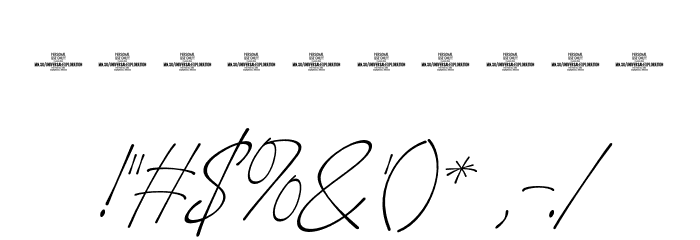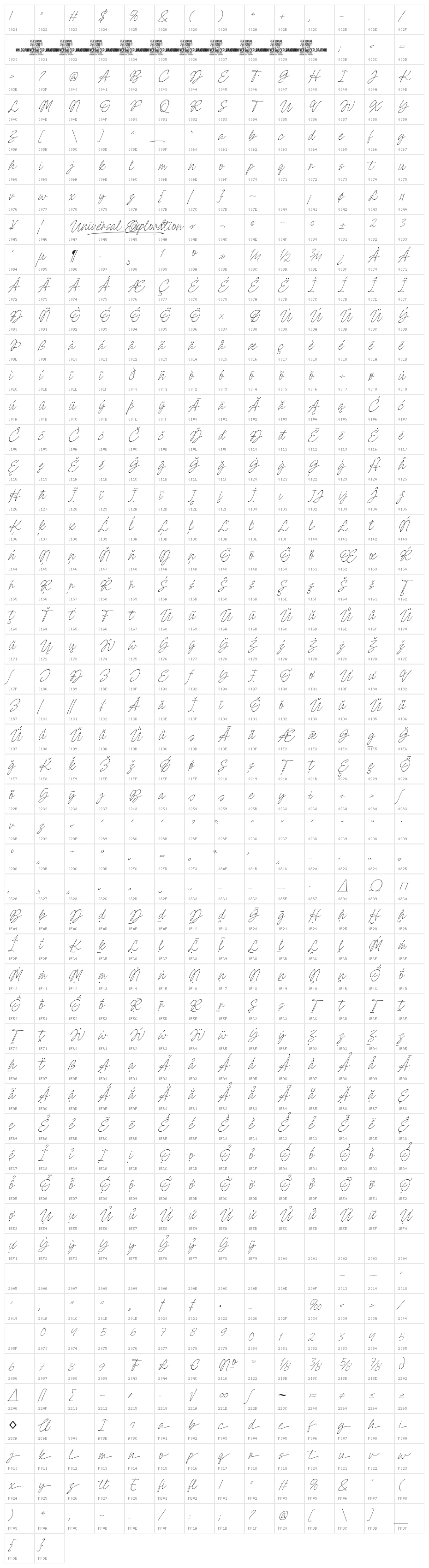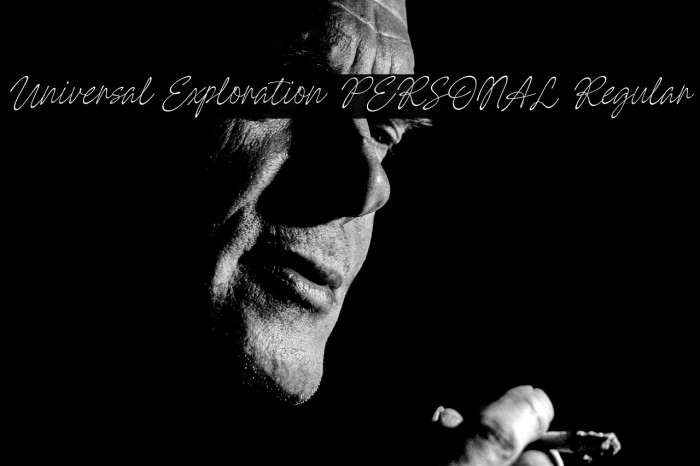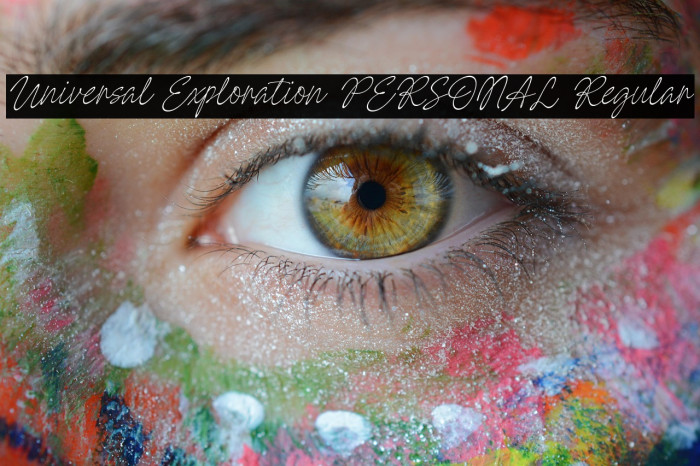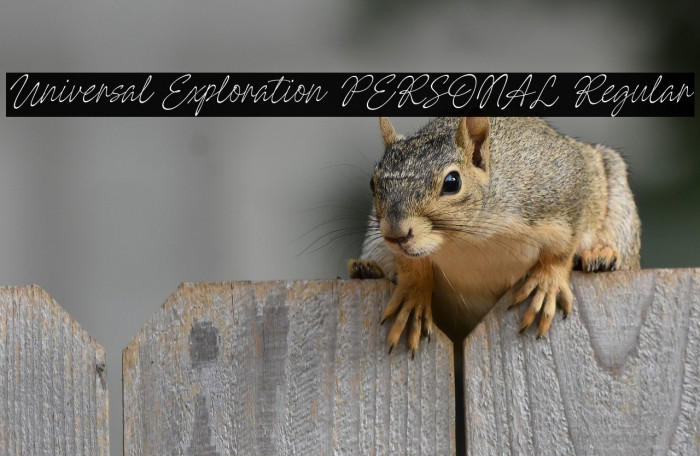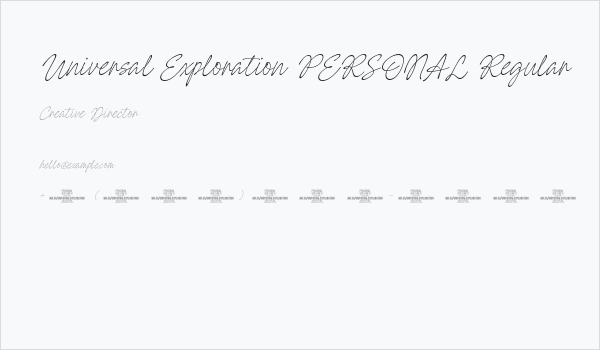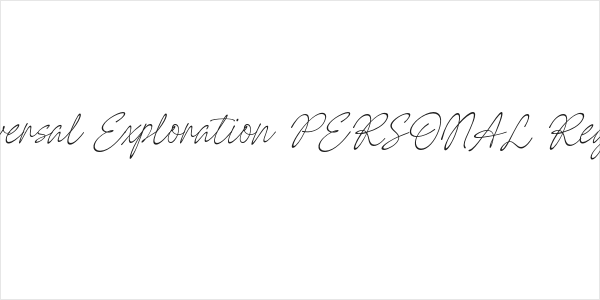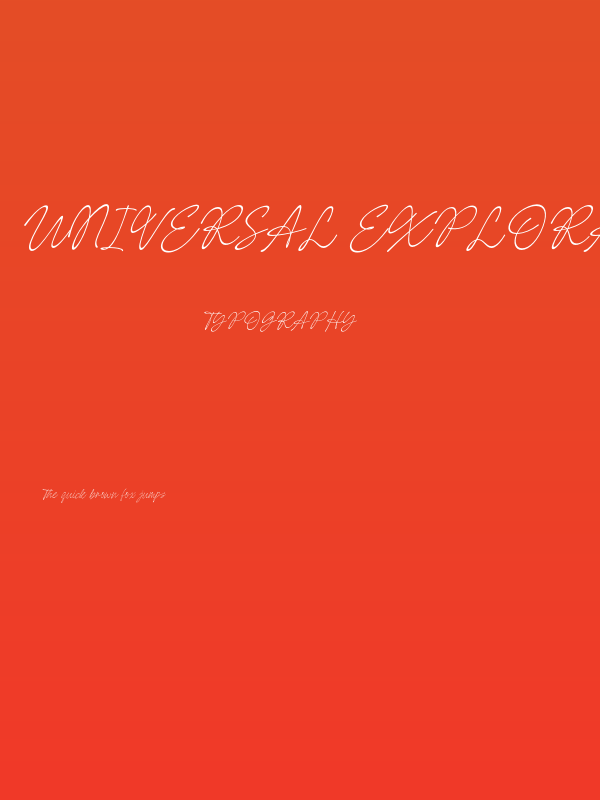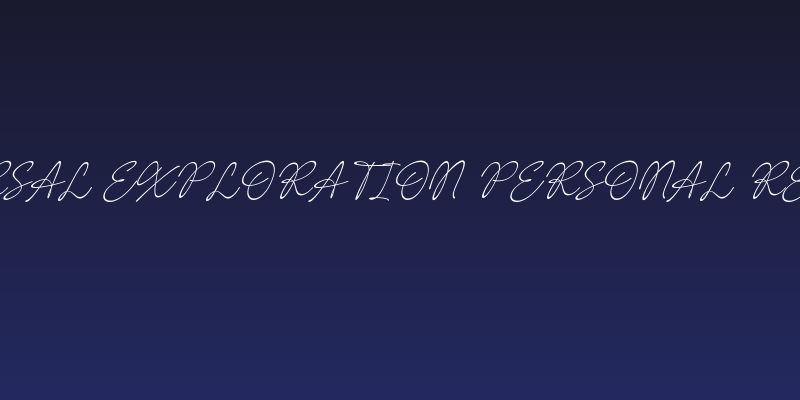
Universal Exploration PERSONAL Regular Font
Universal Exploration PERSONAL Regular Description
This font features a graceful and flowing script style, characterized by its elegant and connected letterforms. The strokes are smooth and continuous, giving it a handwritten appearance that is both sophisticated and approachable. The uppercase letters are slightly more ornate, with flourishes that add a touch of flair, while the lowercase letters maintain a consistent and fluid motion. The numerals and special characters are designed to complement the overall style, ensuring a cohesive look across all text. This font is ideal for projects that require a personal and artistic touch.
| Use Case | Logos, Invitations, Personal branding |
| Proposed Projects | Ideal for wedding invitations, greeting cards, personal branding, and artistic projects. |